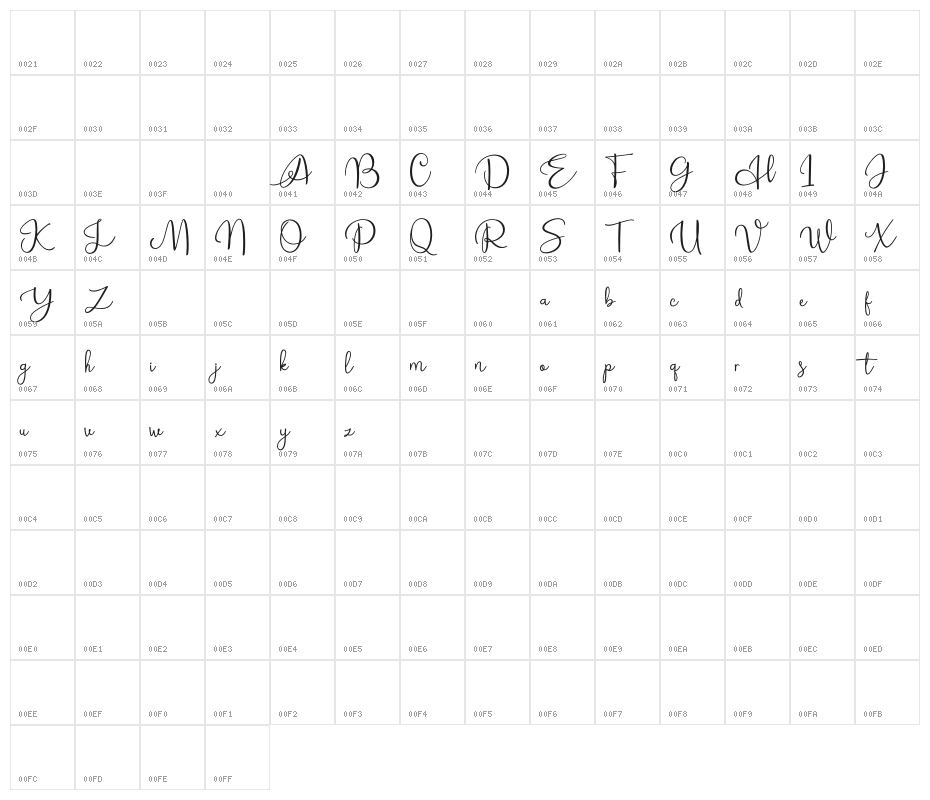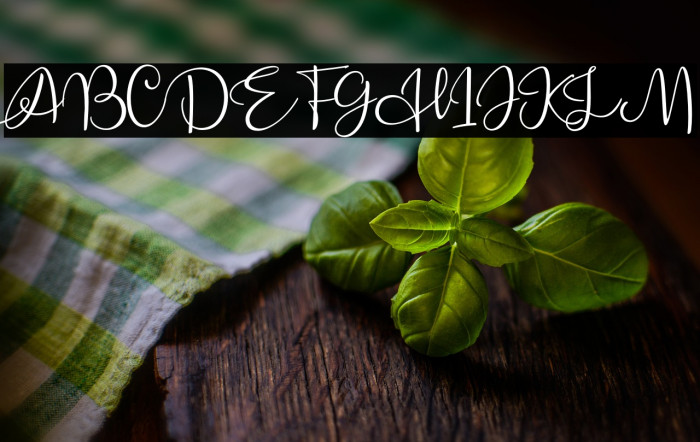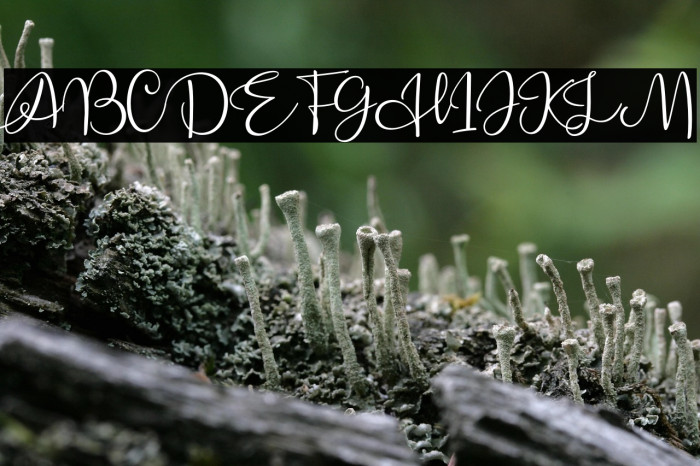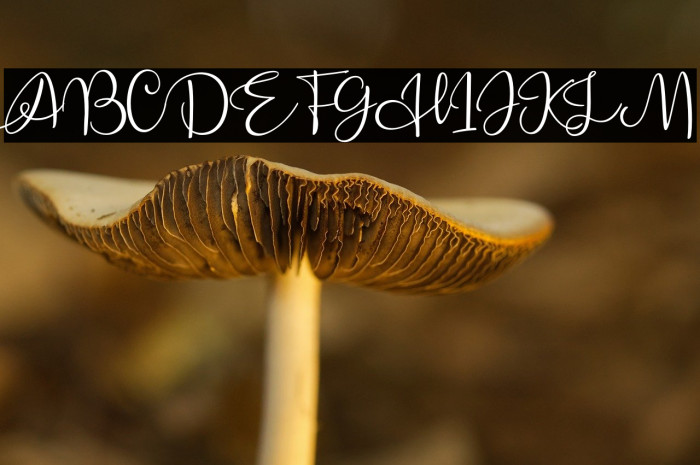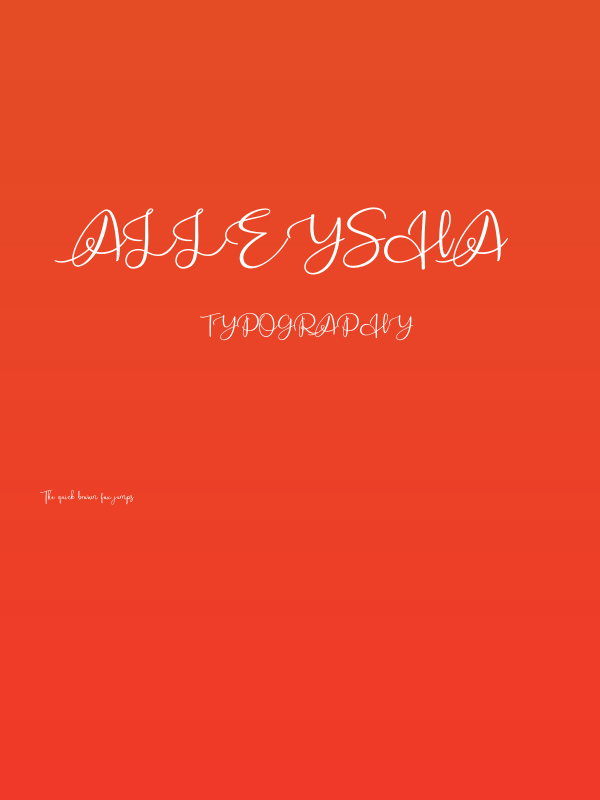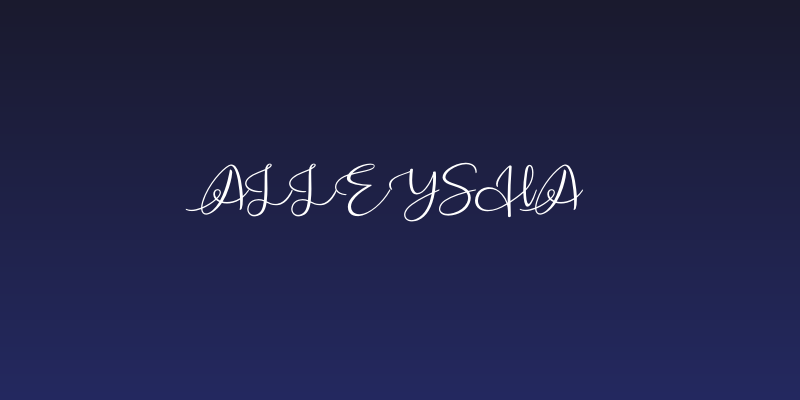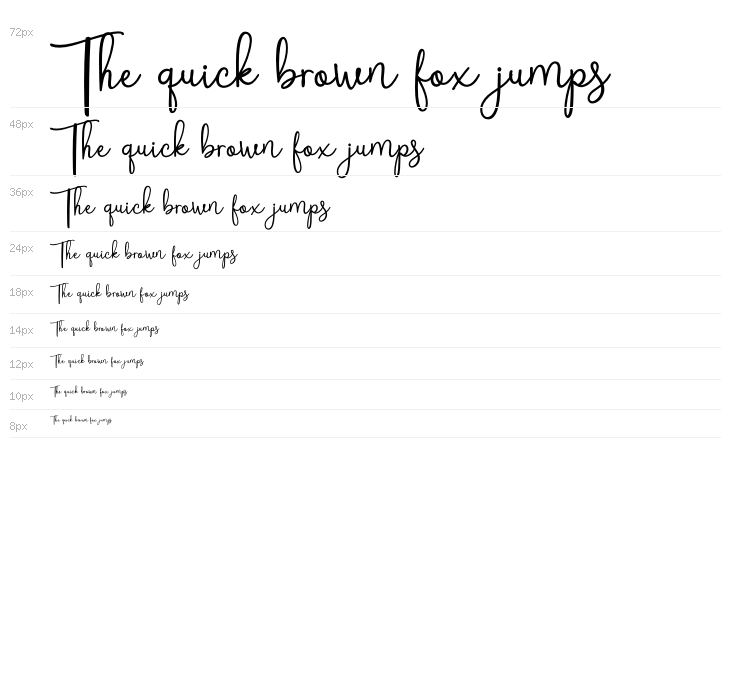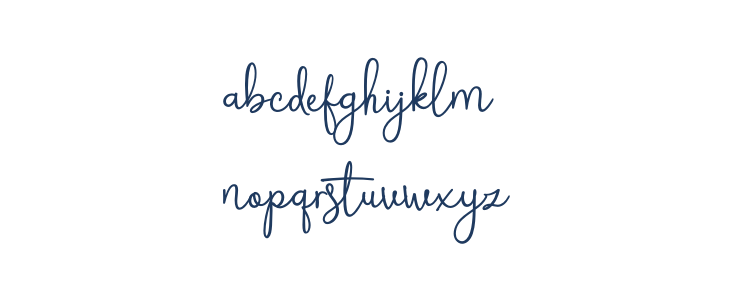
Alleysha Font
Alleysha Description
This font features a flowing, cursive style that exudes elegance and sophistication. The letters are interconnected, creating a seamless and fluid appearance. The uppercase characters are ornate with extended loops and flourishes, while the lowercase letters maintain a consistent, smooth flow. The overall design is reminiscent of traditional calligraphy, yet it maintains a modern touch with its clean lines and balanced proportions. The font's delicate strokes and graceful curves make it ideal for projects that require a personal or artistic touch.
Use CaseLogos, Invitations, Artistic projects
Proposed ProjectsIdeal for wedding invitations, greeting cards, personal branding, and artistic projects requiring a touch of elegance.